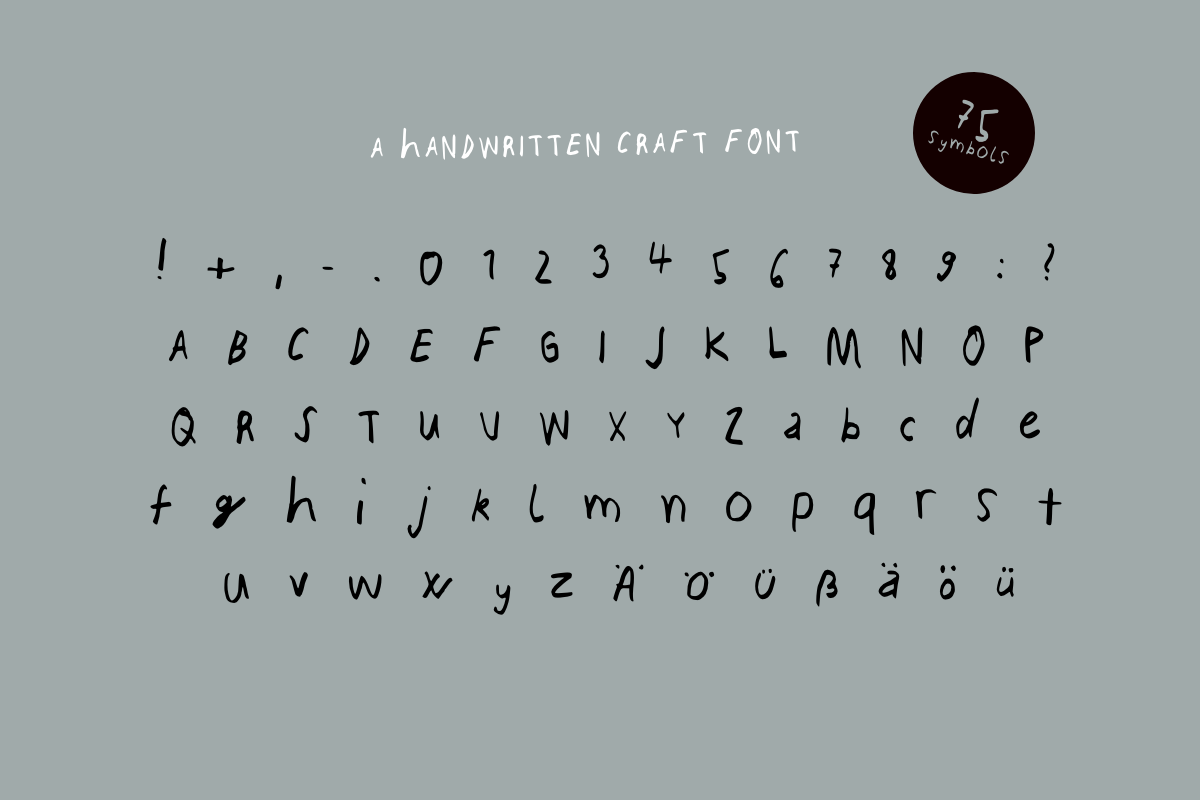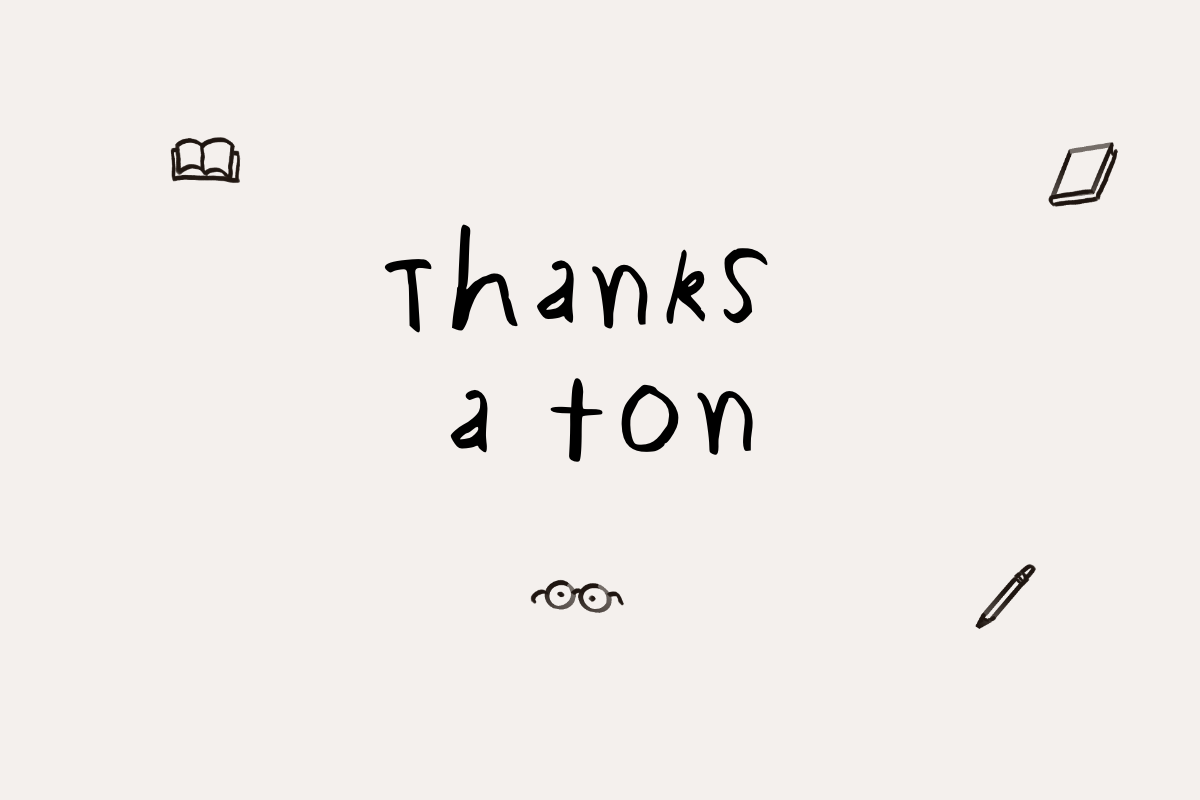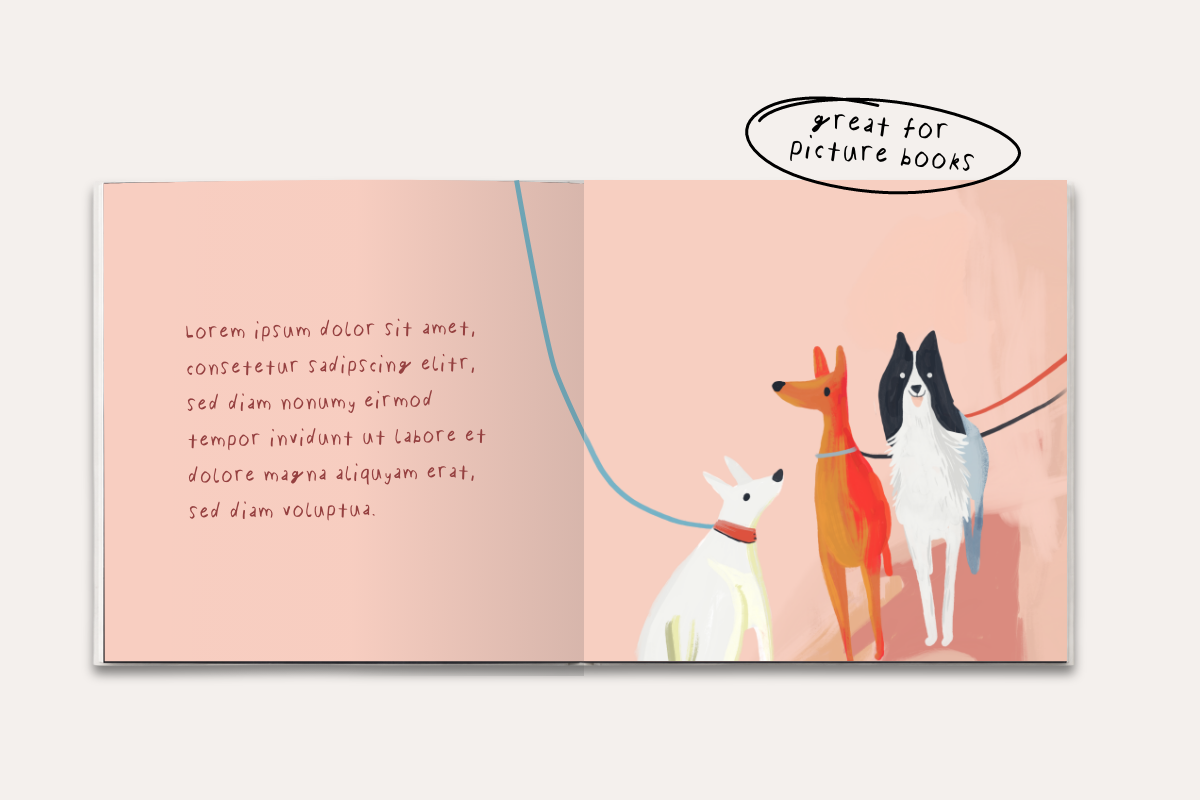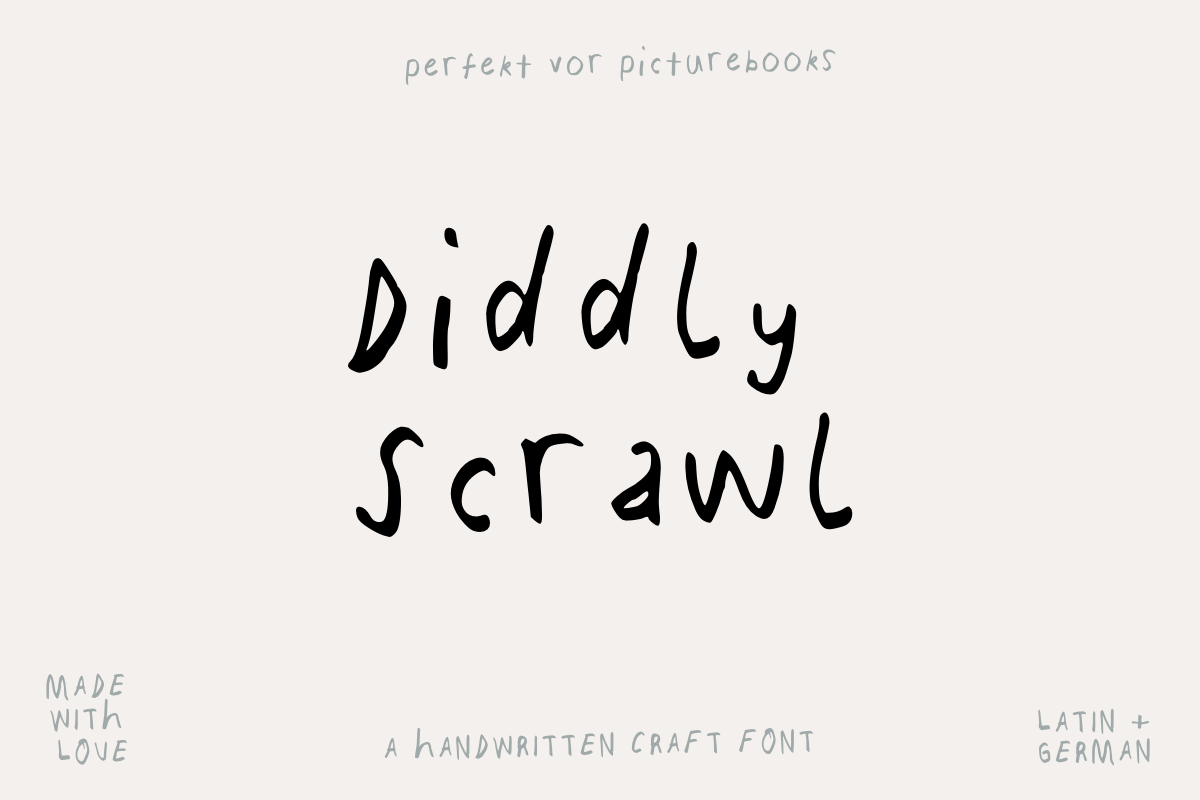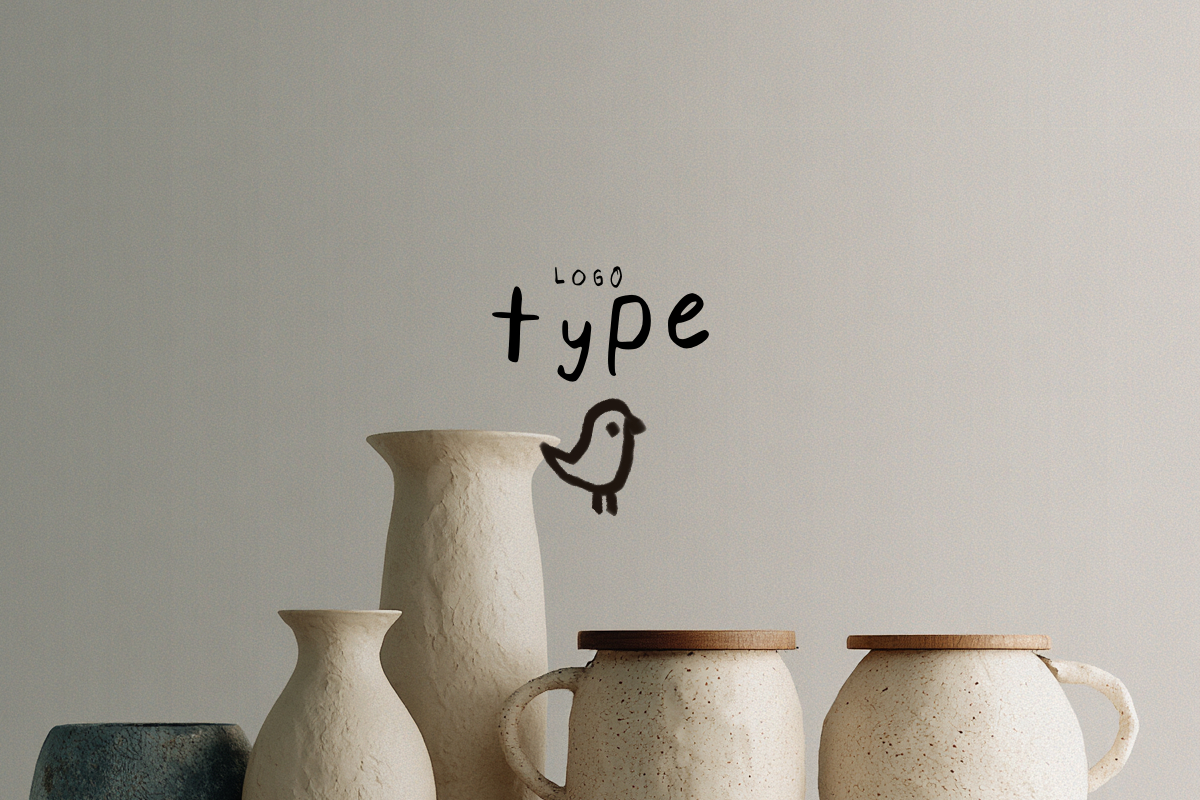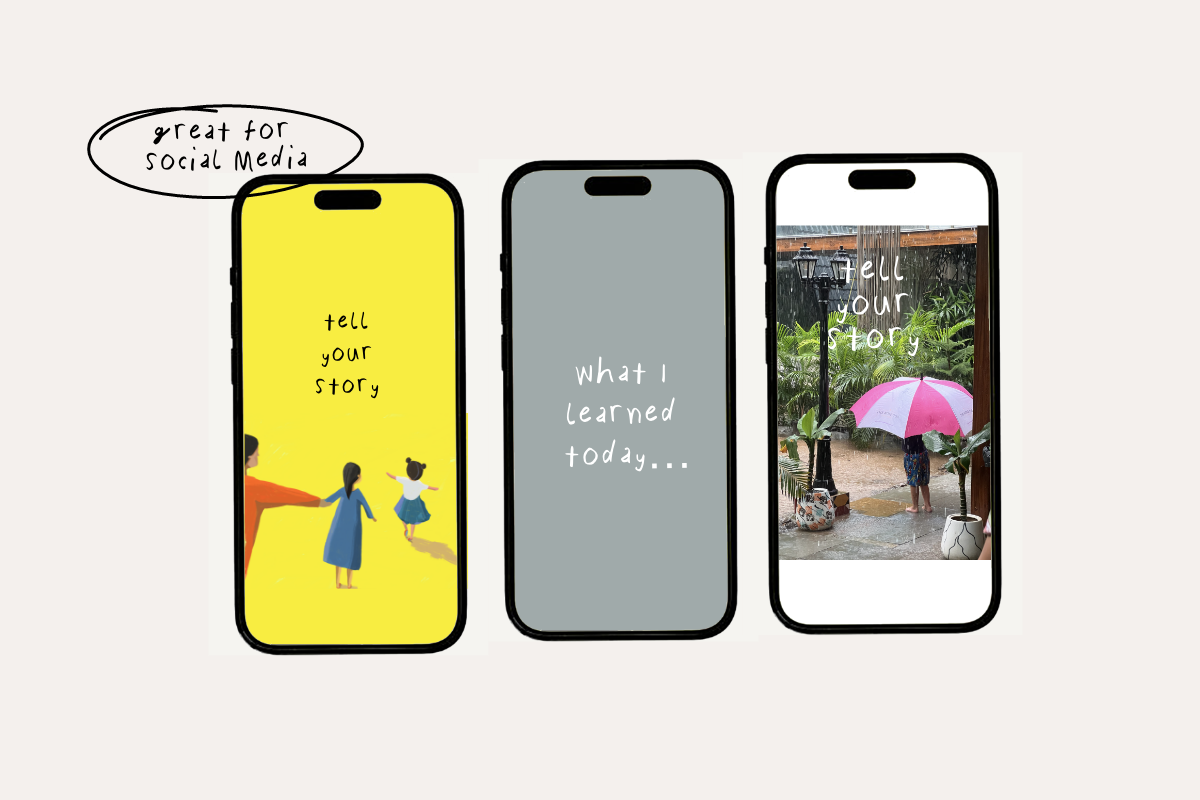
Diddly Scrawl – Picture Book Font
Meet Diddly Scrawl
Diddly Scrawl is a handmade display font full of personality. Every letter keeps its natural imperfections, creating a warm and friendly look that feels hand-drawn rather than digitally constructed.
Designed with illustrators, picture book makers and creative storytellers in mind, Diddly Scrawl adds a charming, human touch to your projects.
Perfect for
• Picture books and children's publishing • Social media graphics and reels • Packaging and handmade products • Logos and personal brands • Posters and prints • Greeting cards and stationery • Journals and scrapbooks • Creative presentations and moodboards